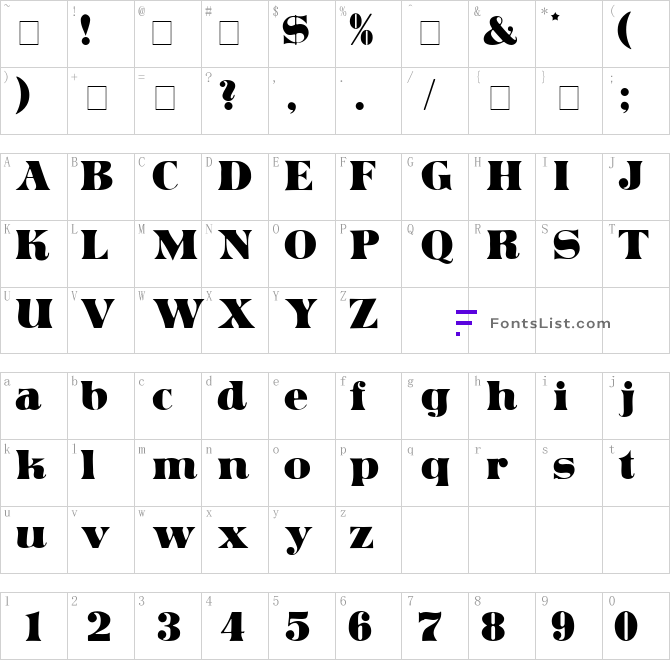
- Font Name:Articula Display SSi
Articula-Display-SSi.ttf is a very beautiful artistic font, Articula-Display-SSi.ttf is widely used in the design and printing of various books and pictures,Articula-Display-SSi.ttf has a strong visual impact,Articula-Display-SSi.ttf is a commonly used font in newspapers, magazines and books, and is used in posters, e-commerce Poster design, store design, logo design, font design and other fields.Articula-Display-SSi.